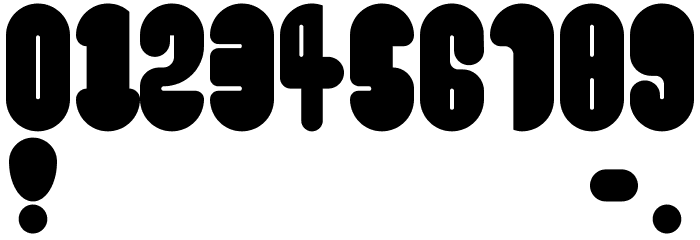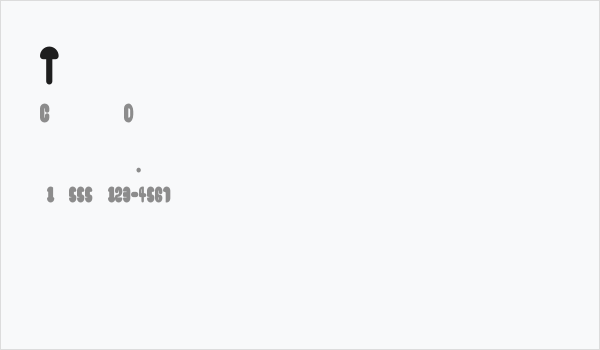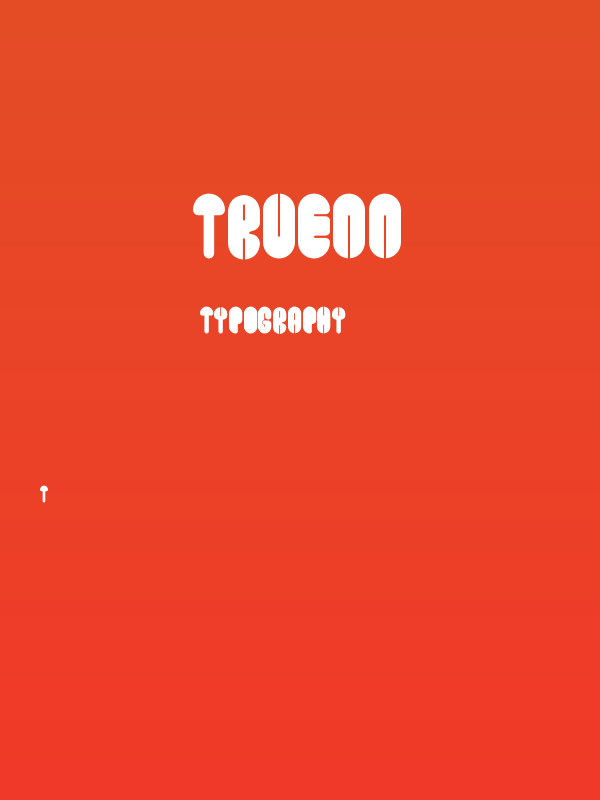
Truenn Font
Truenn Description
This font features a bold, geometric design with a strong emphasis on circular shapes and thick lines. The characters are constructed with a modern, futuristic aesthetic, incorporating unique cutouts and negative spaces that add visual interest. The uppercase letters are particularly striking, with a uniform height and width that create a cohesive look. The numbers and special characters maintain the same bold style, ensuring consistency across all elements. This font is highly decorative, making it ideal for eye-catching designs.
A bold, geometric font with circular shapes and unique cutouts from Uncategorized fonts.
- Proposed Projects: Ideal for posters, logos, and branding projects that require a modern and bold statement.